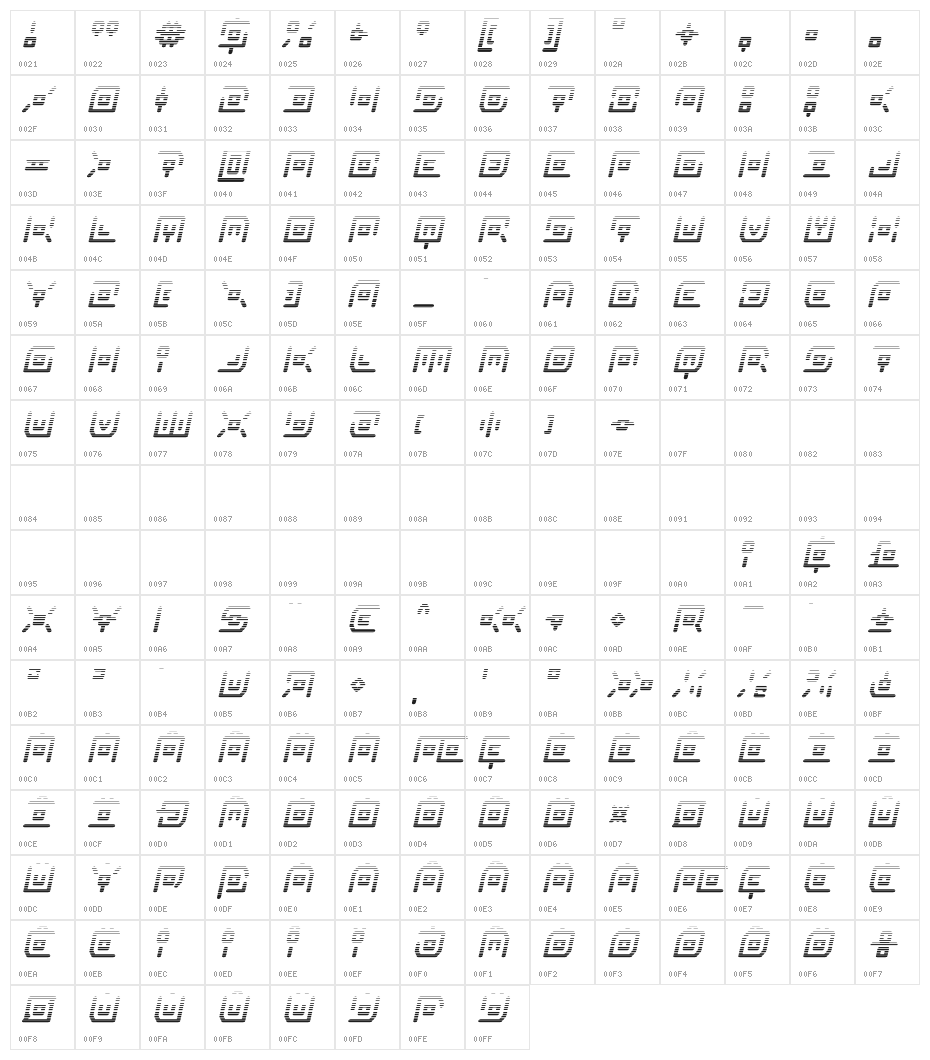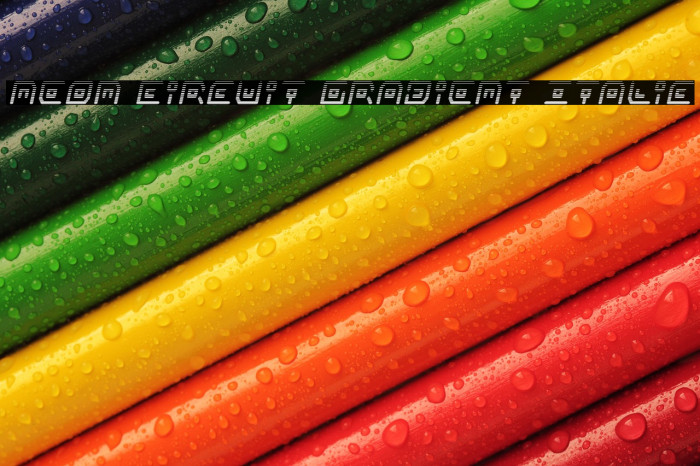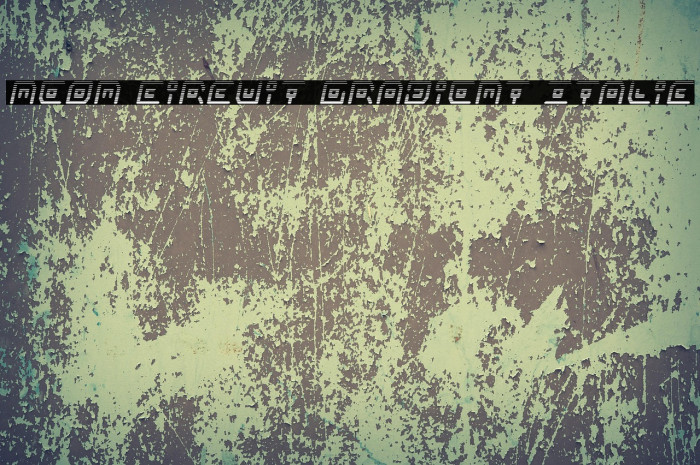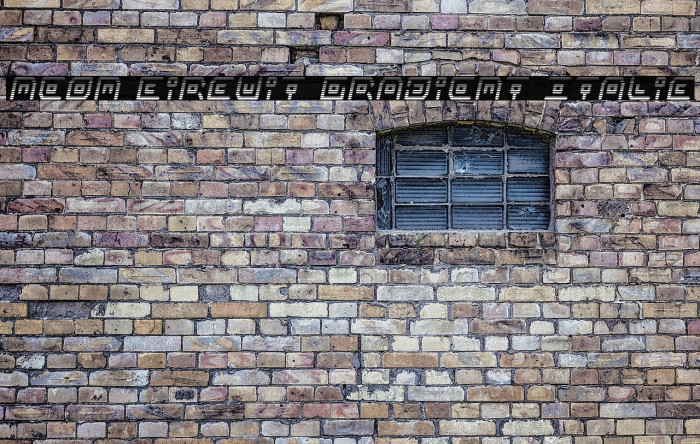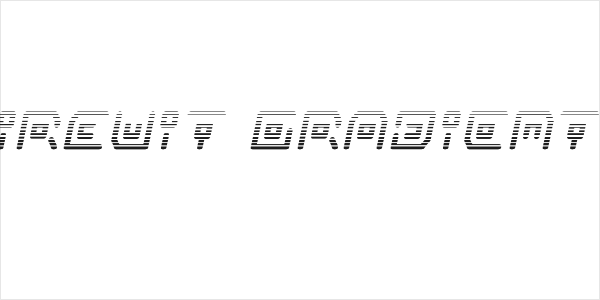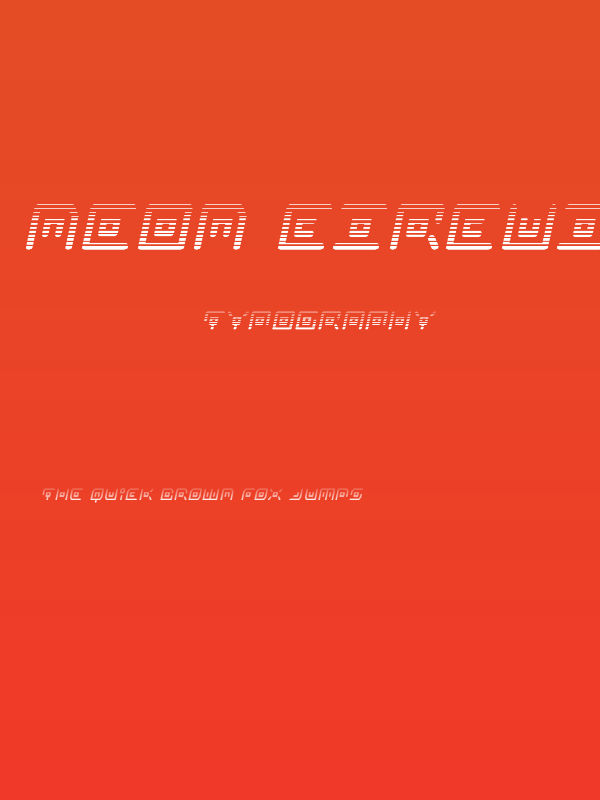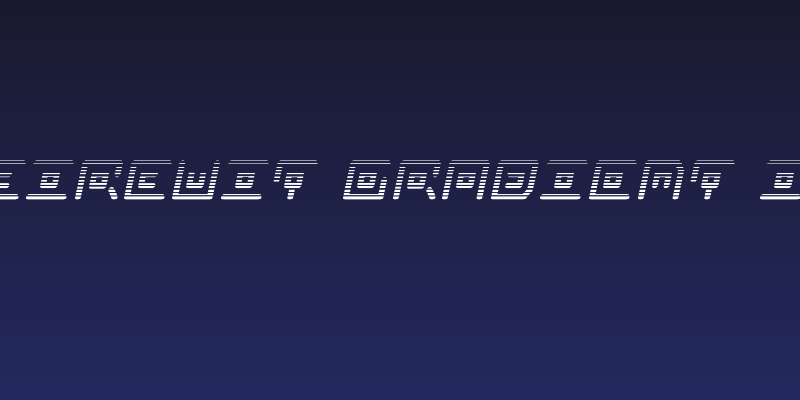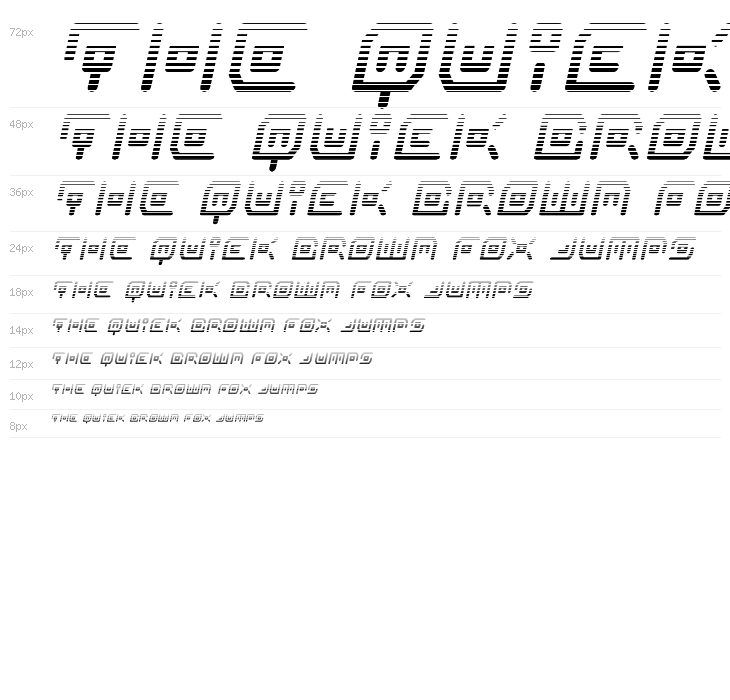
Neon Circuit Gradient Italic Font
Neon Circuit Gradient Italic Description
This font features a futuristic and digital aesthetic, characterized by its unique circuit-like design. The letters are composed of horizontal lines that create a gradient effect, giving the impression of movement and energy. The italicized style adds a dynamic and forward-leaning appearance, enhancing its modern and tech-inspired look. The font's structure is bold and geometric, with each character maintaining a consistent width and spacing, contributing to its cohesive and uniform appearance. The special characters and numbers follow the same design principles, ensuring a seamless integration with the alphabet. This font is ideal for projects that require a cutting-edge and innovative feel, such as technology branding, digital interfaces, and sci-fi themed designs.
| Use Case | Logos, Headlines, Digital Interfaces |
| Proposed Projects | Ideal for technology branding, digital interfaces, sci-fi themed designs, and innovative product packaging. |